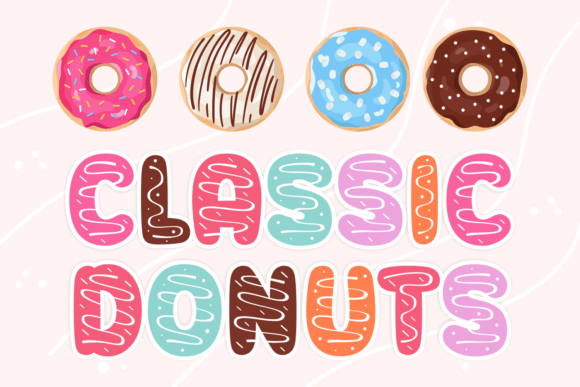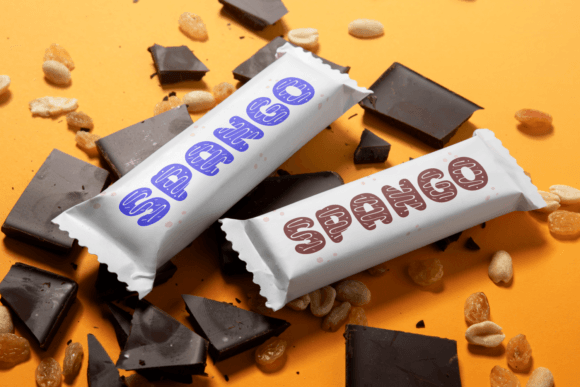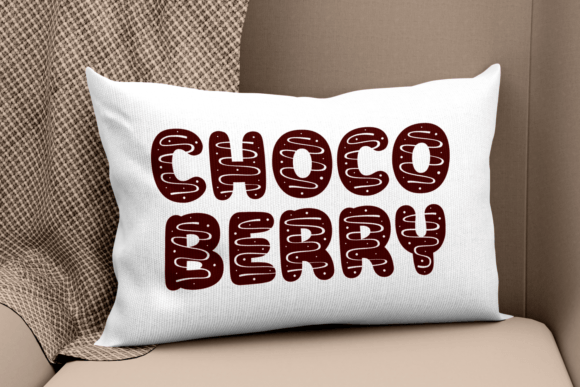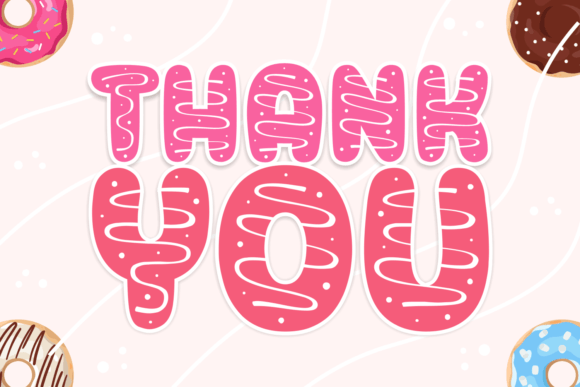
The Sweetest Addition to Your Design Arsenal: Hola Donut Font
Who hasn’t been captivated by the irresistible charm of a freshly baked donut? The moment you take a bite, the sweetness and joy it brings can’t be replicated. As designers, we strive to create visual experiences that evoke similar emotions in our audience. This is where the “Hola Donut Font” comes in – a decorative font that brings the magic of donuts to life through its vibrant and playful design.
Whether you’re creating invitations for a birthday party or designing social media graphics for a fun event, the “Hola Donut Font” is the perfect addition to your design arsenal. Its cheerful and colorful appearance is sure to bring a smile to the faces of viewers and create a memorable visual impression. As a designer, you’ll appreciate the flexibility and versatility of this font, making it a valuable asset for any project that aims to spread joy and positivity.
Hola Donut Font Key Features
- Character Count: The font contains a total of 240 characters, including uppercase and lowercase letters, numbers, and special characters, providing a comprehensive set of glyphs for creative expression.
- Unique Characteristics: Hola Donut Font features a playful, hand-drawn design with a mix of bold and delicate lines, creating a visually appealing and eye-catching effect.
- Font Style: The font is available in Regular and Bold styles, allowing designers to choose the perfect weight to match their design needs.
Hola Donut Font Review
I recently had the chance to work with the Hola Donut Font, and I must say it’s a delightful addition to any design project. ✨ The font’s playful, whimsical feel immediately caught my attention, and I loved how it could be used to create a fun, approachable vibe.
One of the standout features of Hola Donut Font is its versatility. ✨ It can be used for a variety of purposes, from branding and advertising to digital products and social media graphics. The font’s clean lines and rounded edges make it perfect for creating eye-catching headings and titles.
- ⚠️ Limited character set: While the font has a decent selection of characters, it’s not as comprehensive as some other fonts on the market.
- ⚠️ Not ideal for body text: Due to its playful nature, Hola Donut Font may not be the best choice for long blocks of body text, as it can be difficult to read in large quantities.
Overall, I was impressed with the Hola Donut Font’s potential and would recommend it for projects where a fun, energetic vibe is required. However, it’s essential to keep its limitations in mind when deciding whether or not to use it in your design.
To get the most out of the “Hola Donut Font”, try combining it with bold or italic text for emphasis, or use it in conjunction with other fonts for a unique look.
Experiment with different font sizes and styles to achieve the desired visual impact.
The “Hola Donut Font” is perfect for:
Designing playful and eye-catching logos
Creating festive and fun social media graphics
Adding a touch of whimsy to marketing materials and advertising campaigns
Alternatives to “Hola Donut Font” for Designers
Great Vibes Font is a modern, elegant script font perfect for adding a touch of sophistication to your designs. It’s ideal for use in branding, invitations, and other creative projects where a stylish, handwritten feel is desired.
Compared to Hola Donut Font, Great Vibes Font has a more refined and polished appearance, making it suitable for more formal designs. It also has a wider range of language support, making it a great choice for international designs.
What is the recommended font size for the Hola Donut Font?
The recommended font size for the Hola Donut Font is between 12pt and 24pt. This range provides optimal legibility and readability for most design applications. However, you can experiment with different font sizes to achieve the desired visual effect for your project.